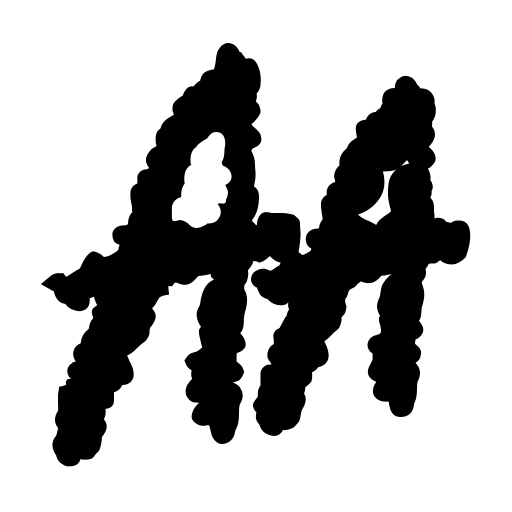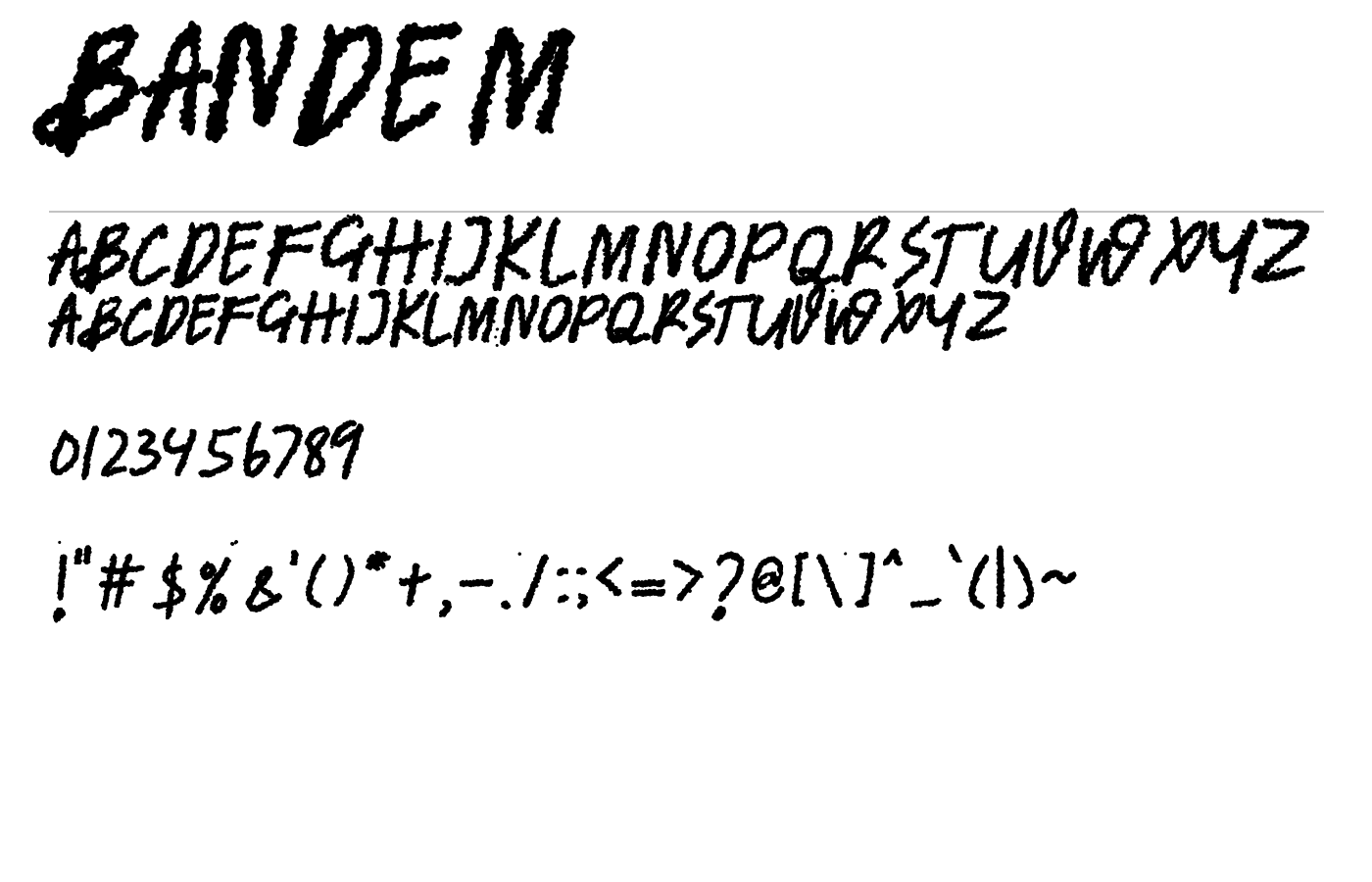
BANDEM is a lively, handwritten-style font with a textured, brushstroke appearance that conveys a casual and energetic feel. Its irregular, slightly condensed letterforms and dynamic strokes make it perfect for creative, informal designs such as posters, branding, and headlines that want to express spontaneity and personality. This font works well wherever a personal, artistic touch is needed to stand out.
BANDEM Font